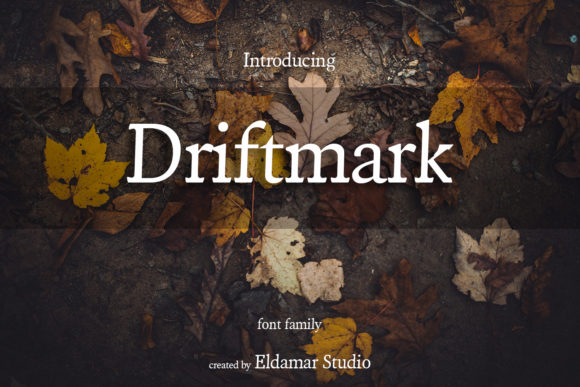
Introducing Driftmark Font: Elevate Your Designs with a Touch of Elegance
Are you on the hunt for a font that embodies simplicity, sophistication, and versatility? Look no further than Driftmark, a minimal and neat serif font designed to elevate your creative projects to new heights. With its clean lines, classic appeal, and adaptability, Driftmark is poised to become your go-to choice for a wide array of design endeavors.
The Essence of Driftmark: A Minimalist Serif Font
Driftmark’s design philosophy revolves around minimalism and elegance. Its serif structure adds a touch of traditional sophistication, while its clean and uncluttered design ensures it remains highly legible across various applications. Whether you’re working on a branding project, crafting a website, or creating engaging print materials, Driftmark’s subtle yet distinctive character will help your designs stand out.
Versatility at Its Core
One of the standout features of Driftmark is its incredible versatility. This font isn’t limited to a specific style or industry; it can seamlessly integrate into an incredibly large set of projects. From modern digital platforms to timeless print media, Driftmark adapts with ease, ensuring your message is conveyed with clarity and style. Whether you’re a designer looking to refresh a brand’s identity or a crafter aiming to add a professional touch to your handmade goods, Driftmark is an excellent choice.
Adding Driftmark to Your Creative Arsenal
Incorporating Driftmark into your projects is straightforward and beneficial. By adding it to your creative toolkit, you’ll discover how effortlessly it pairs with a wide range of design elements. Driftmark’s neutral background allows it to complement vibrant colors, intricate patterns, and diverse textures without overpowering them. This harmonious integration capability makes it an invaluable asset for designers and crafters seeking to produce standout work.
Driftmark in Digital and Print
In the digital realm, Driftmark shines as a user-friendly font that enhances website readability and mobile responsiveness. Its clean serifs and balanced spacing make it perfect for body text, while its elegant appearance ensures headings and titles grab attention without overwhelming the viewer.
In print, Driftmark translates beautifully to business cards, brochures, posters, and more. Its professional demeanor and crisp lines produce stunning results, whether you’re aiming for a sleek corporate look or a more artistic presentation.
Why Choose Driftmark?
• Universal Compatibility: Driftmark’s simple yet effective design makes it suitable for a broad spectrum of projects.
• Elegant Appeal: Its minimalist serif structure lends a touch of sophistication to any design.
• High Legibility: Perfect for both digital and print applications, ensuring your message is always clear.
• Adaptability: Seamlessly pairs with various design elements, from vibrant colors to intricate textures.
Driftmark is more than just a font; it’s a design companion that brings a blend of minimalism, elegance, and versatility to your creative projects. By incorporating Driftmark into your workflow, you’ll not only streamline your design process but also ensure your work stands out in a crowded creative landscape. So why wait? Add Driftmark to your creative ideas today and discover the difference it can make.